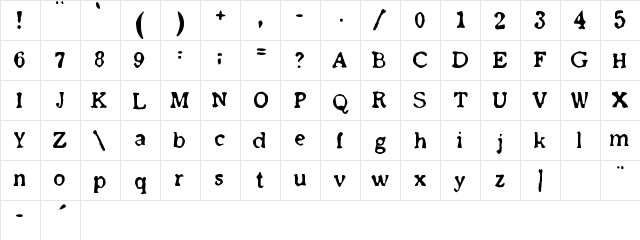
Old newspaper font Regular
Design Context for Old newspaper font Typeface
Old newspaper font is a composed and adaptable typeface that performs quietly and consistently across a wide range of design contexts.